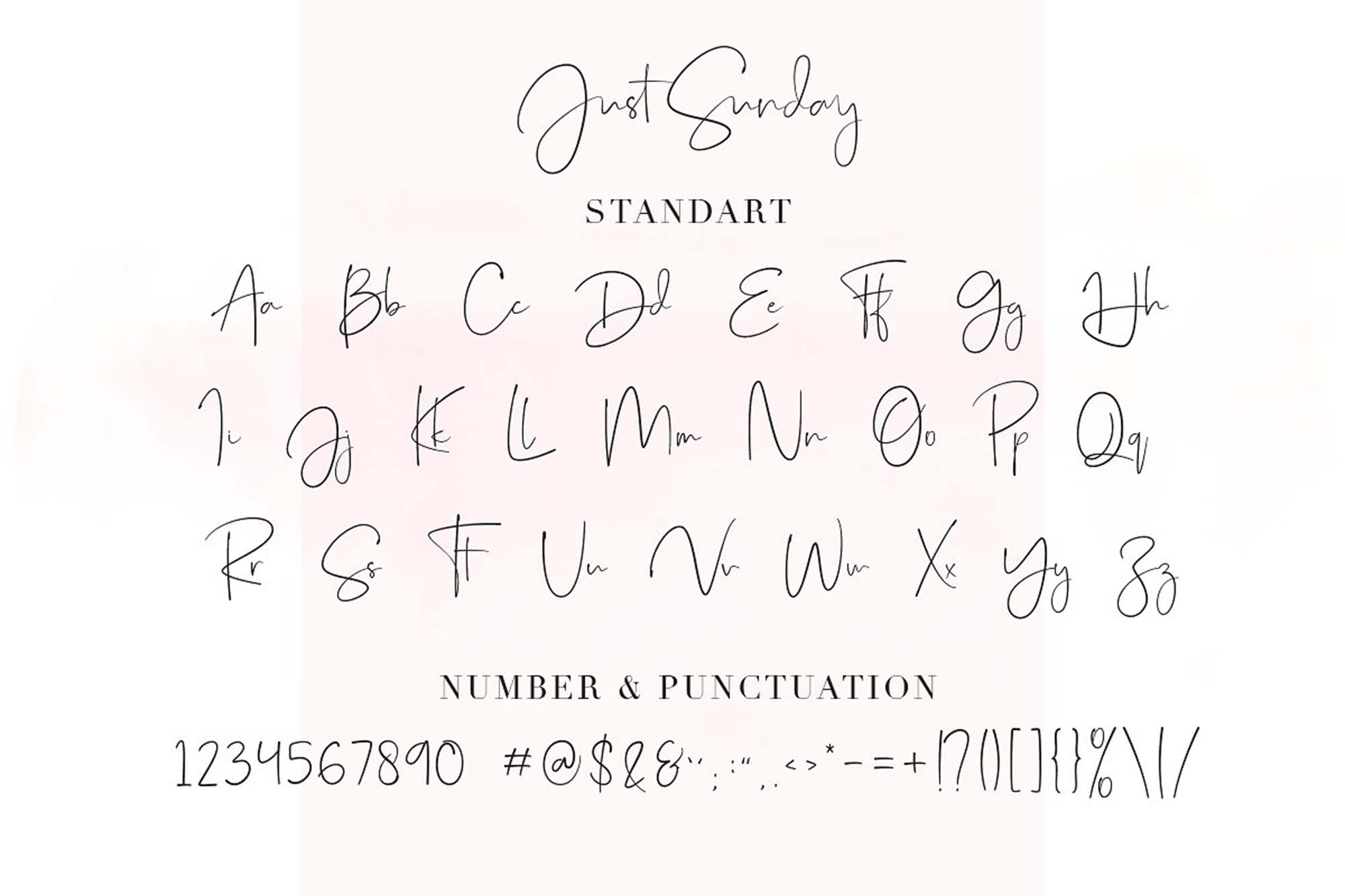
Just Sunday Font
Looking for a stylish script font like Wanderwall? Check out Sunday Font, a charming hand-lettered option with extra flair and elegance perfect for adding a touch of beauty to your design projects. This font is a delightful addition to your collection of script and handwritten fonts. Dive into the world of elegant typography with Sunday Font!
Style Of Just Sunday Font Free